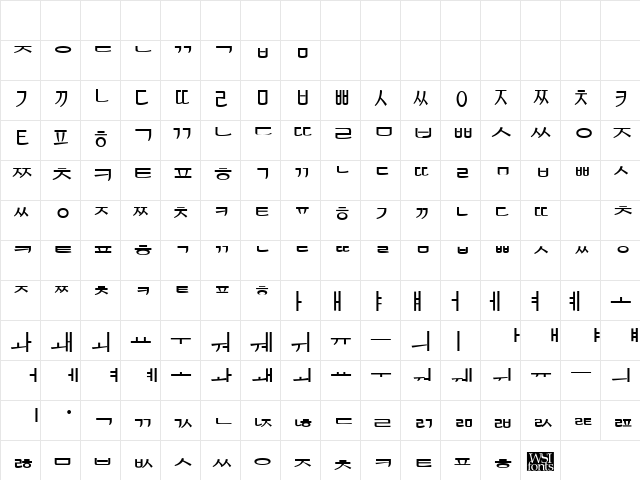
KoreanSans Regular
KoreanSans takes a measured approach to typography — its balanced proportions and neutral character make it a reliable workhorse for both digital and print work.